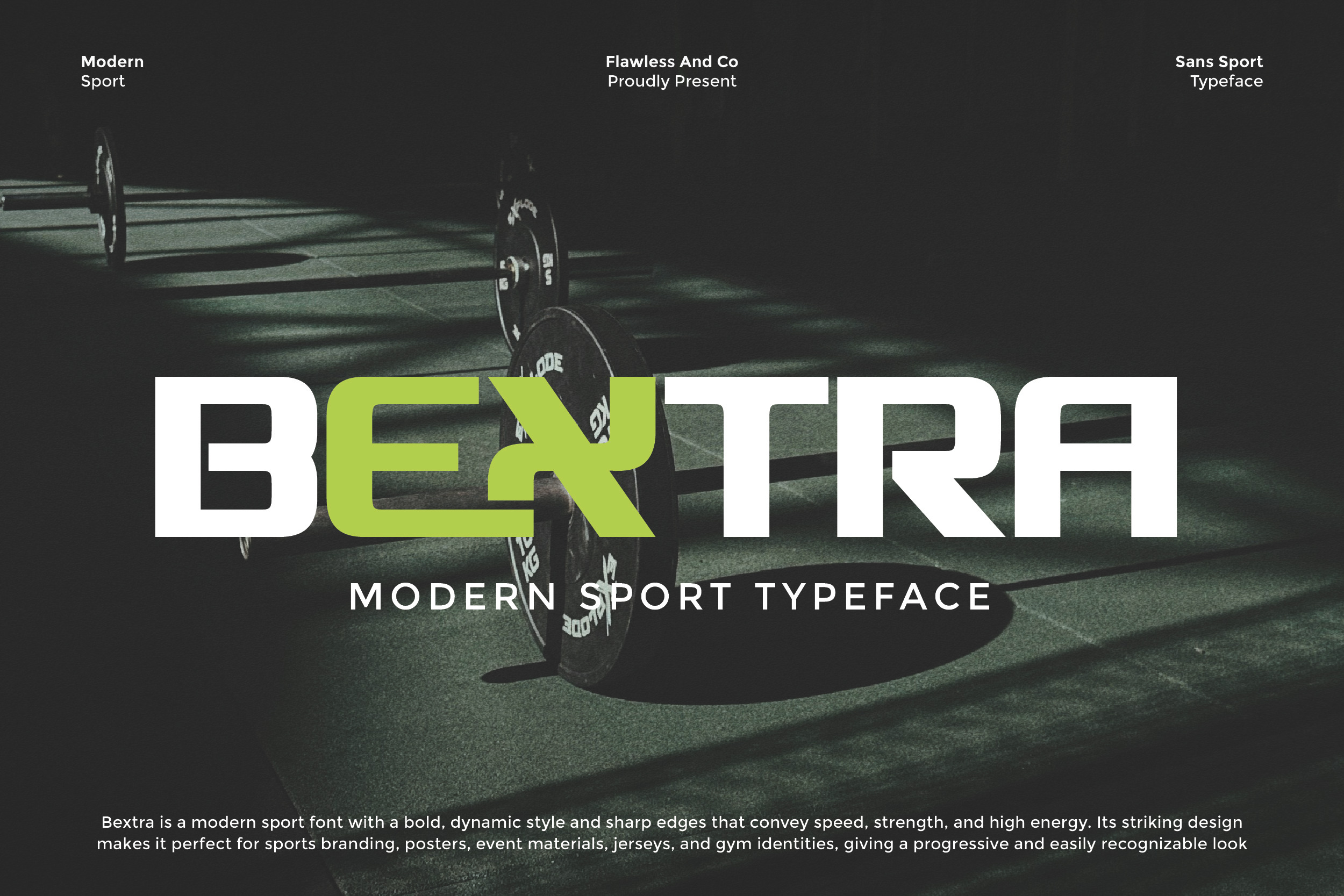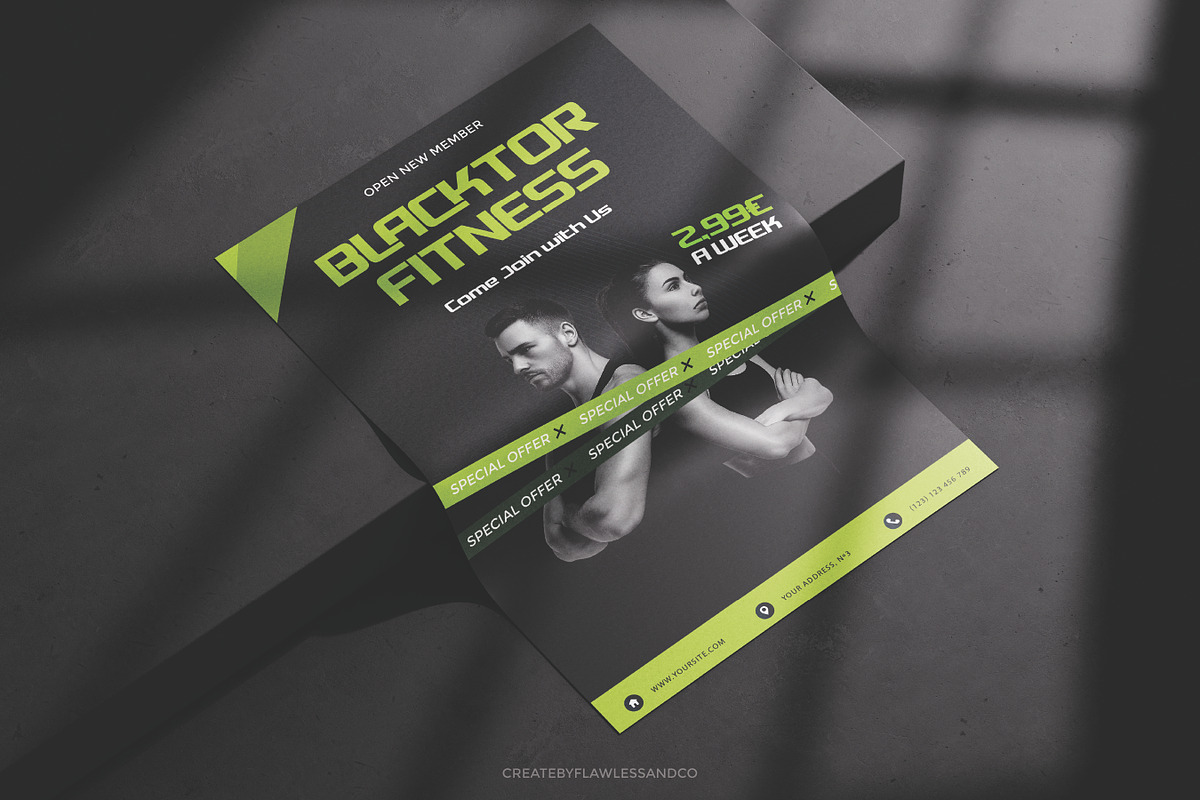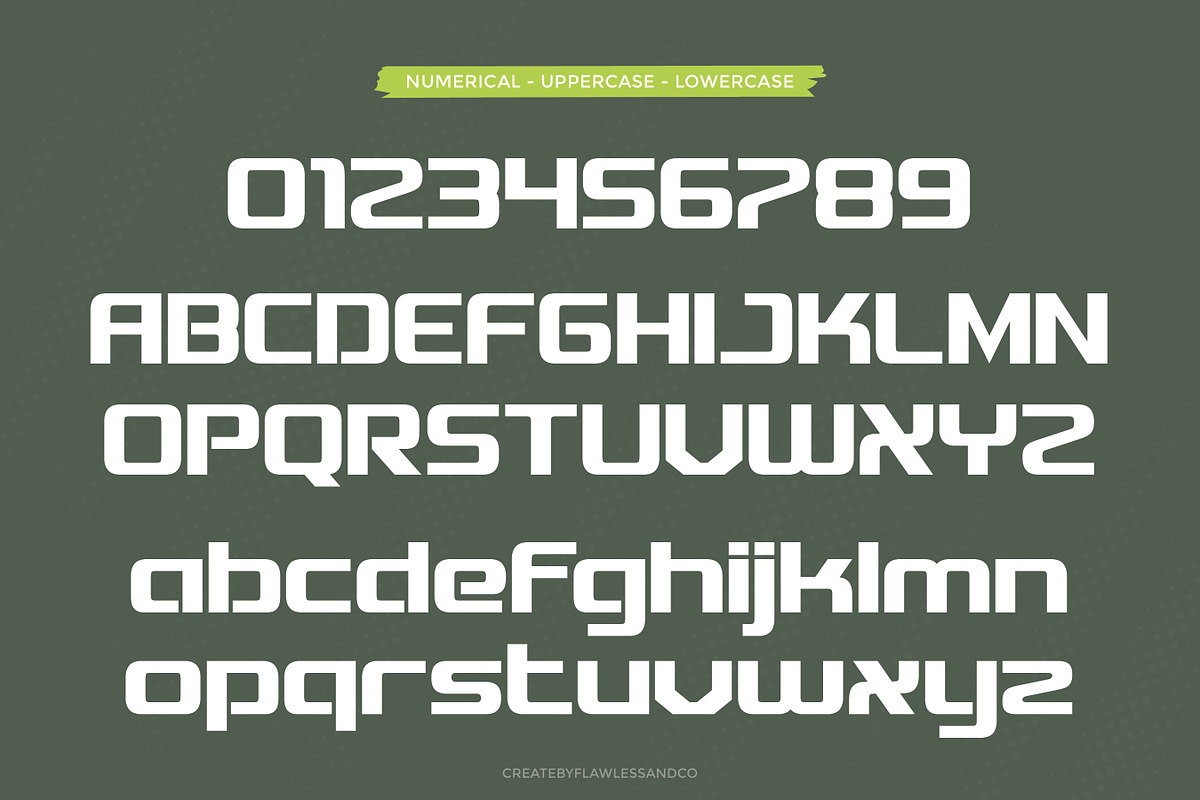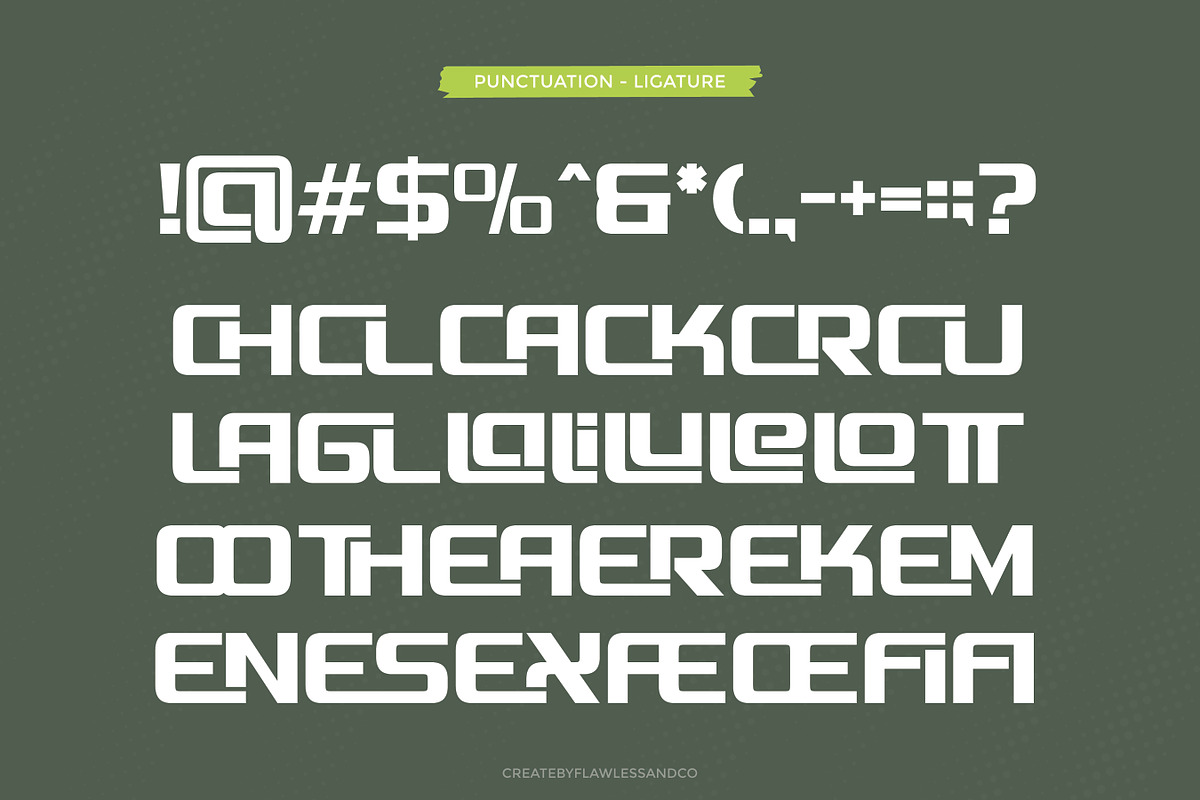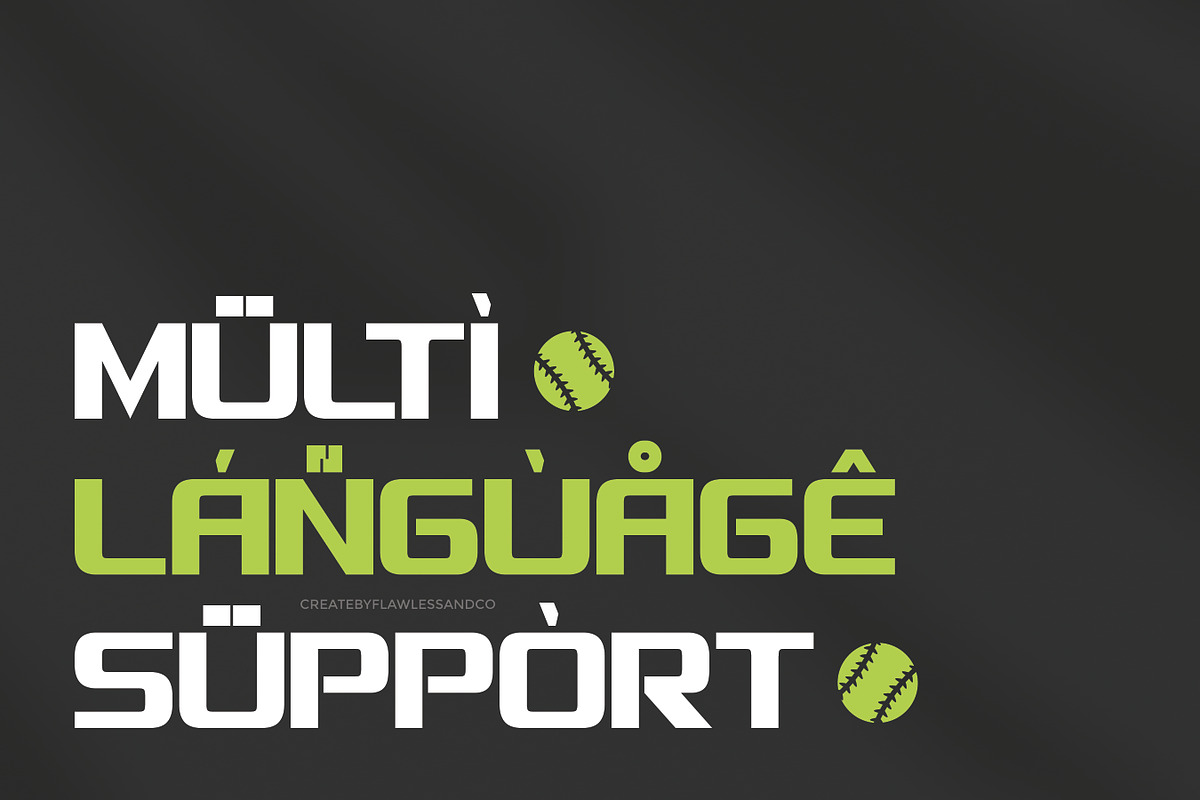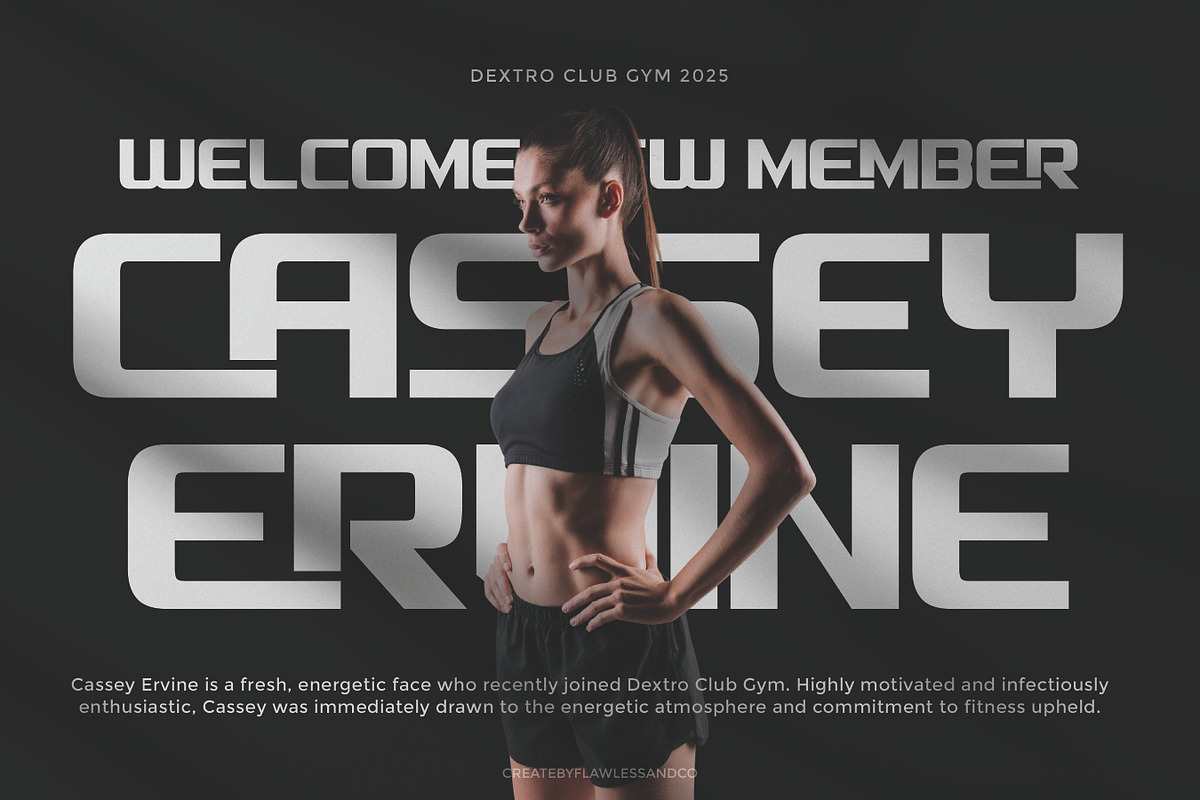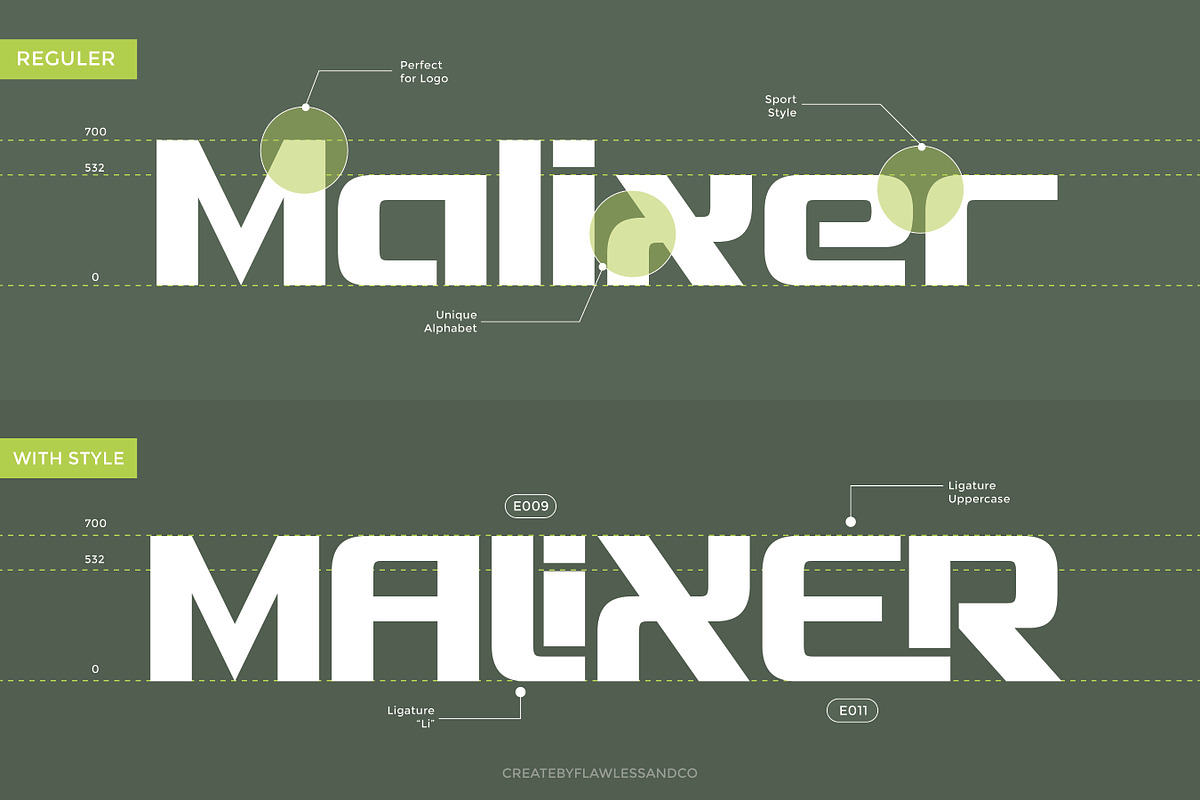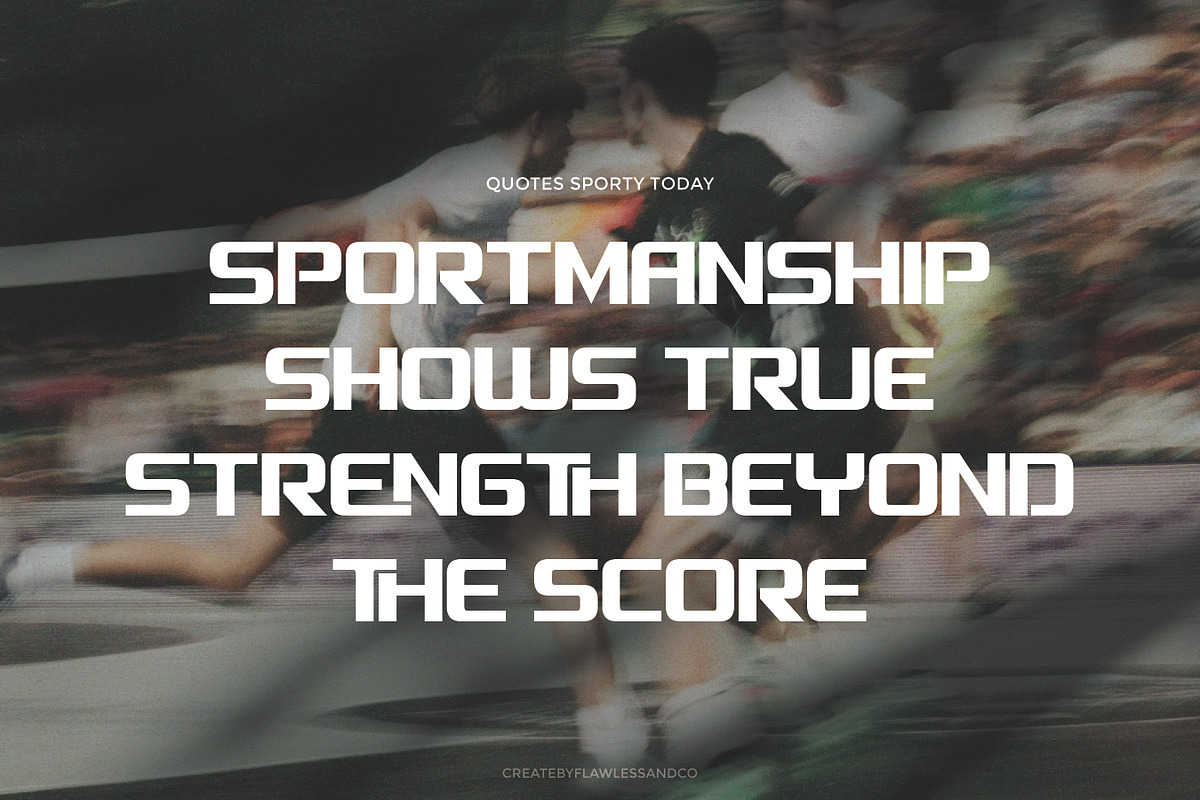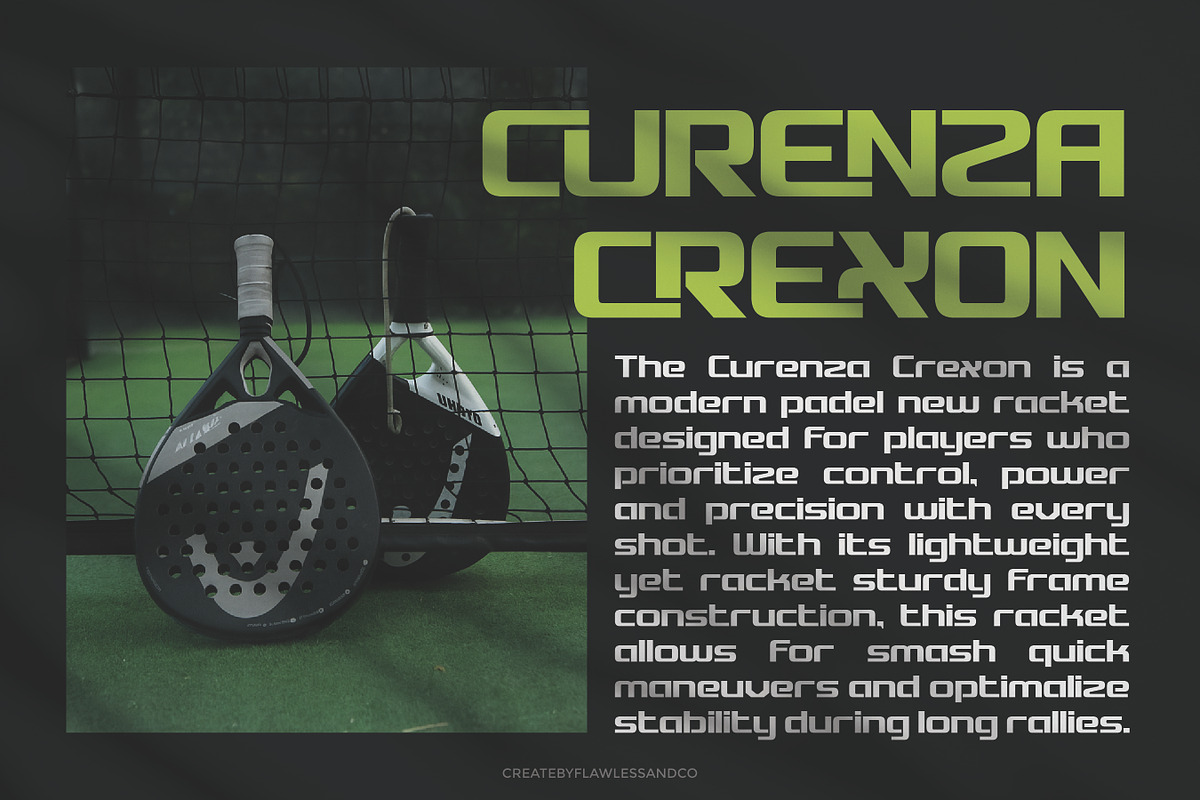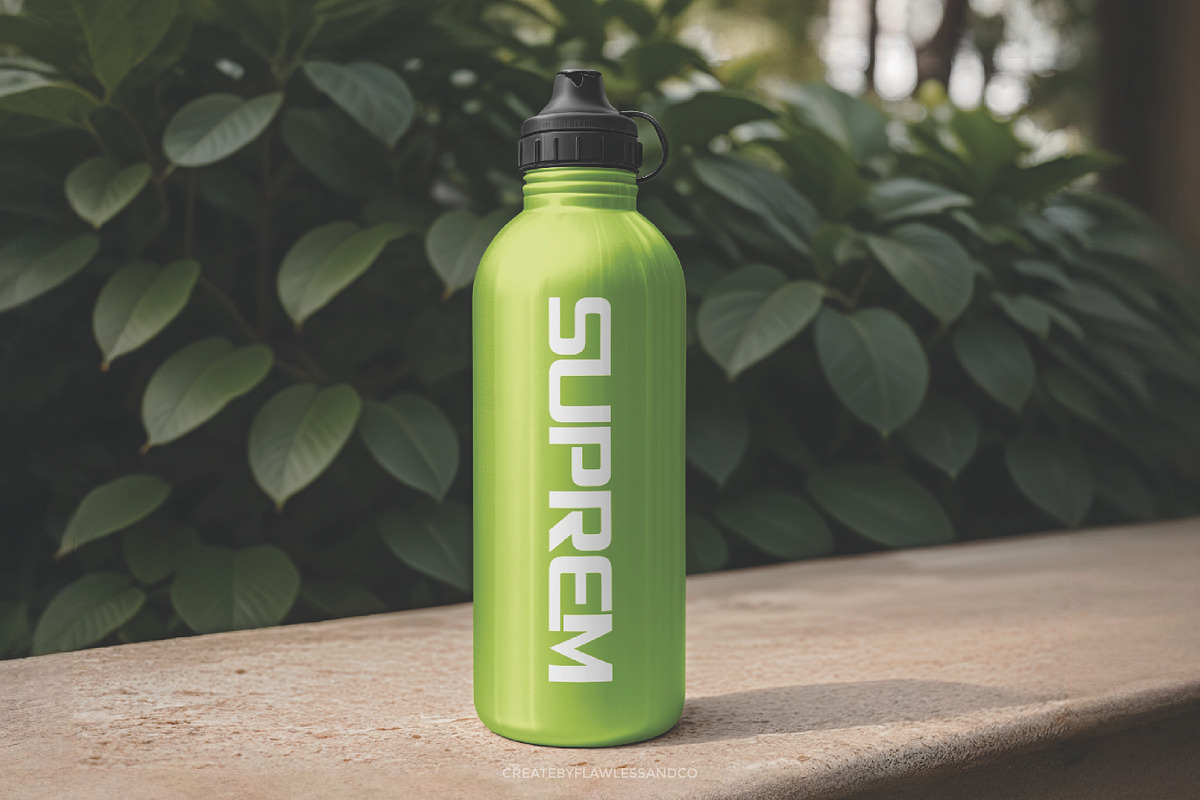
Bextra - Modern Sport Font
Bextra - Sport Font
Bextra is a modern sport font designed with bold, dynamic shapes and sharp edges that embody speed, energy, and strength. Its clean yet powerful style makes it the perfect choice for sports branding, team logos, posters, event materials, gym identities, and athletic merchandise. With its striking appearance, Bextra delivers a professional, progressive, and instantly recognizable look that pushes every design to perform at its best.
Who Should Use Bextra?
Bextra is made for designers, brands, and creatives who want to bring bold energy and athletic spirit into their work.
This font is perfect for:
- Sports teams and athletic clubs building a strong visual identity
- Fitness brands and gym owners looking for dynamic, modern typography
- Event organizers promoting competitions, tournaments, and sporting events
- Designers creating high-impact posters, banners, and merchandise
- Apparel and jersey creators who want sharp, eye-catching type for their products
A Must-Have Font for "Brand and Logo" Creators and Designers
Bextra is a must-have typeface for brand and logo creators who want to deliver strength, clarity, and modern style in every design. With its bold construction and sharp sport-inspired edges, this font ensures your logos and brand marks stand out with confidence and high energy—perfect for projects that demand impact and memorability.
Why Choose Bextra for "Brand and Logo" Projects?
Bextra brings a powerful blend of modern design and sporty energy, making it the perfect choice for brand and logo projects. Its bold shapes and sharp details communicate strength, speed, and determination—qualities that resonate with sports teams, fitness brands, active lifestyle products, and dynamic businesses. With its clean yet striking look, Bextra ensures your brand identity remains professional, memorable, and instantly recognizable.
Suitable For:
- Sports branding and active lifestyle logos
- Fitness centers, gyms, and supplement brands
- Event posters, competitions, and tournament materials
- Team jerseys and sports merchandise
- Modern editorial layouts with a dynamic touch
- Social media graphics and marketing campaigns -Product packaging that needs energy and impact